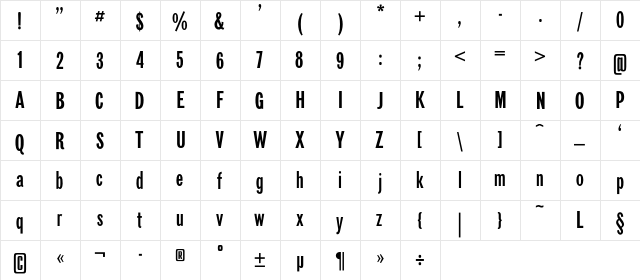
NewspaperSans Regular
Design Context for NewspaperSans Typeface
NewspaperSans offers clean, dependable letterforms without strong stylistic allegiance, making it a practical choice for designers who need flexibility.
Pro Tip: Use NewspaperSans in both headline and body roles to test its range before committing to a single application.